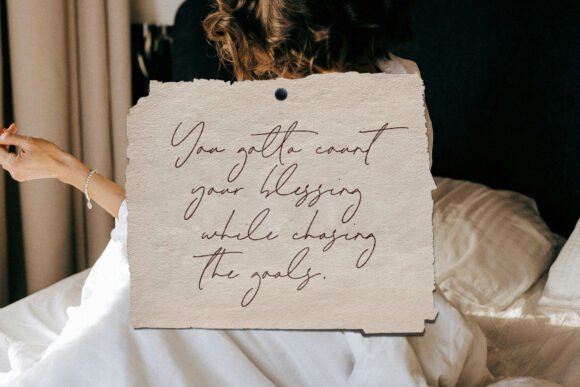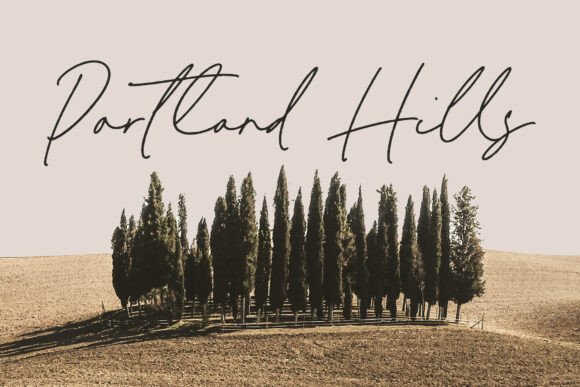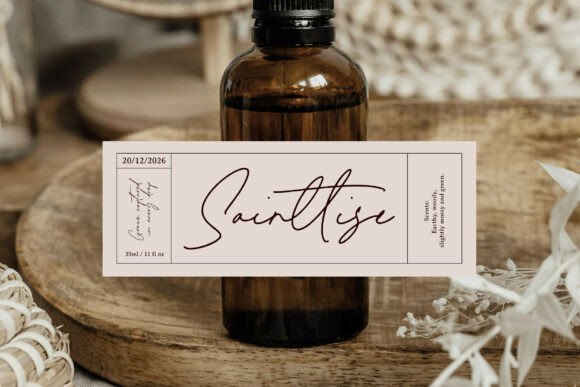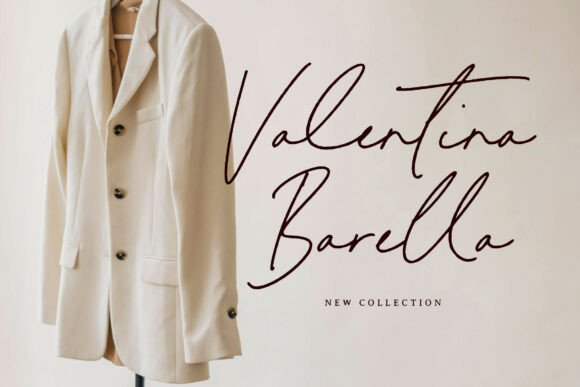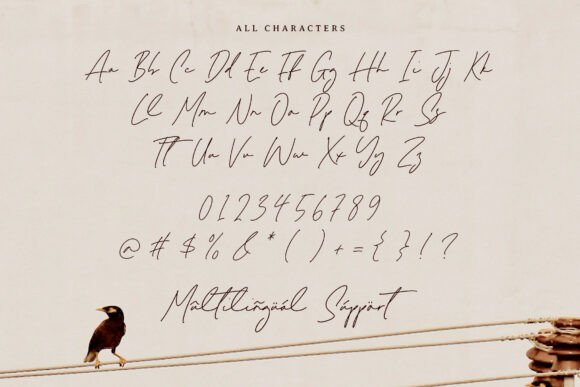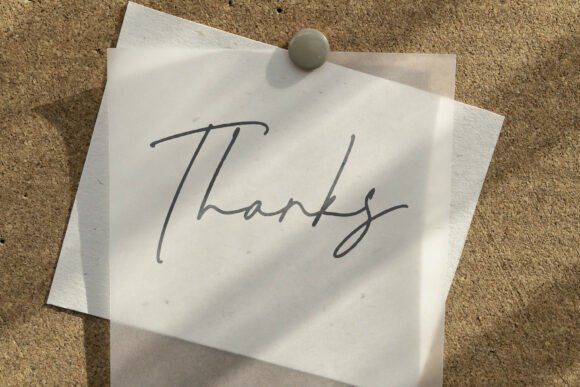
Introduction to Melisma Signature Font Font
Fonts play a crucial role in design, and the Melisma Signature Font font is a typeface that brings both character and versatility to any project. Whether you’re working on a branding project, a website, or a print design, the Melisma Signature Font font offers a unique style that can elevate your work.
Exude sophistication and high-end flair with the Melisma Signature font.
This exquisite Melisma Signature typeface is designed to mimic the swift, confident strokes of a luxury fountain pen, offering an authentic βsignatureβ feel that is both professional and artistic The elongated ascenders and sweeping descenders of the Melisma Signature font create a sense of movement and prestige, making it a go-to choice for luxury branding, fashion editorials, and high-end personal identity projects.
Key Features of Melisma Signature Font Font
Why Choose Melisma Signature Font Font?
The Melisma Signature Font font is more than just a typeface β it’s a design tool that helps you communicate your message with style and clarity. Its unique character set and versatile design make it suitable for a wide range of applications, from elegant invitations to bold headlines.
With its carefully crafted letterforms and balanced proportions, the Melisma Signature Font font ensures readability and visual appeal across all mediums.
What makes Melisma Signature Font font special?
The Melisma Signature Font font stands out with its unique design, exceptional readability, and versatility across various design applications.